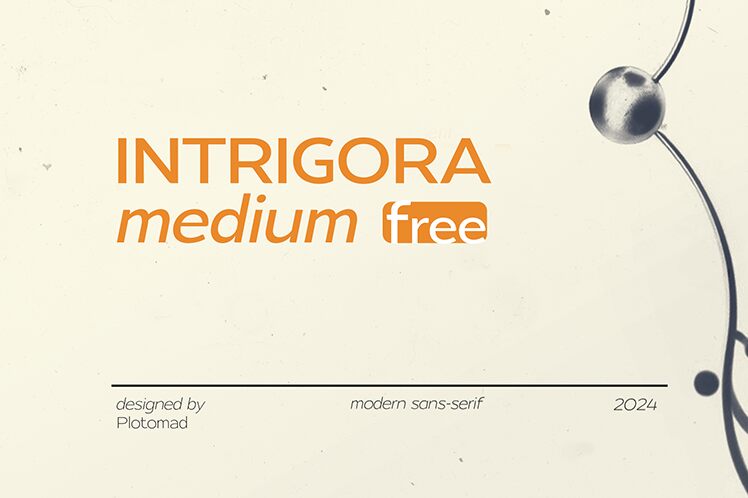
Intrigora font family is a distinctive collection of minimalist typefaces created by Aleksey Ryabov. It’s a free font family with four font styles labeled light, regular, semi-bold, and bold. The sans serif family offers simple lines, lacking any intricate decorative parts. Common to every font style, yet uniquely their own, each letter carries an individual finish. So bring in uniqueness to your texts and create standout reads.
With an experimental style, it should best be used for non-formal texts. In order to properly represent its varying styles, the best way to use it is via branding and identity projects (logos, slogans, etc). This can include dashing posters within copies and headings, sign designs, banners, brochures, as well as delicate magazines. Use it for packaging projects and labels (clothing items, food items, etc) or create typography art with this modern label.
Intrigora captures typographic modernity, blending sleek contemporary design with the comforting warmth of rounded type. Its versatility allows it to move seamlessly between design contexts, enhancing branding and commanding attention in headlines.
With its generous lettering, Intrigora empowers designers to craft compositions that captivate and inspire. Each character is meticulously crafted to maintain readability while infusing a touch of intrigue, making it ideal for both digital and print applications.